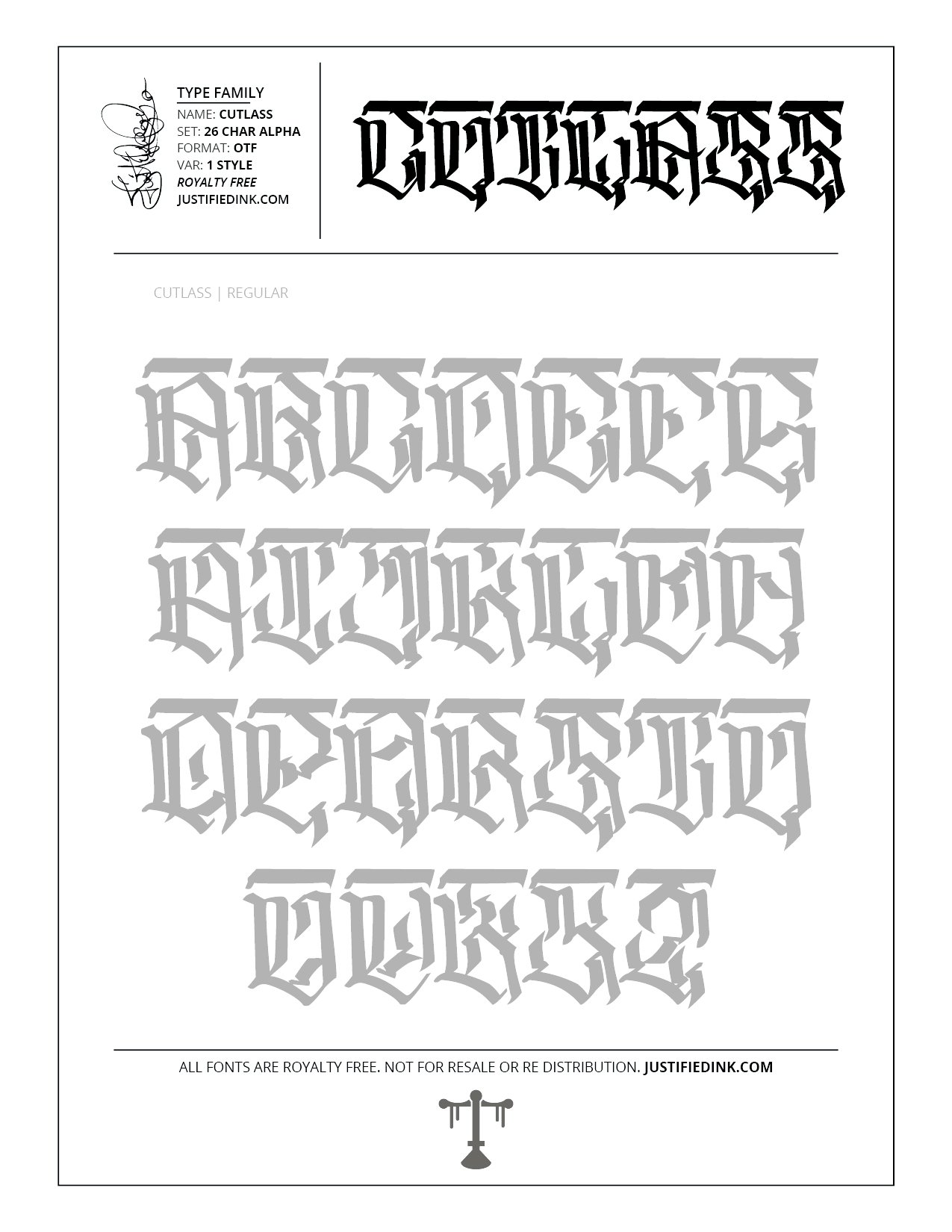
Cutlass (1 style) - Custom Font by Justified Ink
NAME: CUTLASS
Cutlass cuts deep with the directional strokes and the razor sharp cut backs.
This font is part of the collection by Justified Ink, called Blackletter II. After 15+ years creating, I began to focus on building personal libraries of my work. The Blackletter II Collection was created through writing page after page, and countless hours over a 2 year span of daily practice. Each font from this collection has been hand drawn, manually vectored, and custom set as a type-able font. It comes in a full set of 26 char alpha. Each font family has variations in styles and/or non-alpha chars.